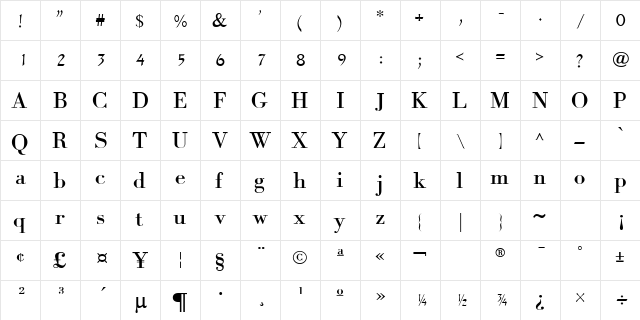
AdaMFLight Regular
Design Context for AdaMFLight Typeface
AdaMFLight takes a measured approach to typography — its balanced proportions and neutral character make it a reliable workhorse for both digital and print work. Its slender proportions lend an understated elegance to any composition.